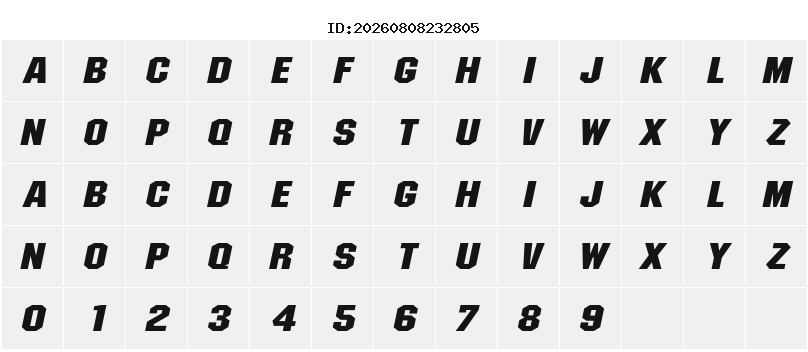
PittsburghExtended Preview
• Font Name: PittsburghExtended
• Font Style: Oblique
• Font ID: SWFTE:PittsburghExtended Oblique
• Full Font Name: PittsburghExtended Oblique
• Version: Rev. 003.000
• PostScript Name: PittsburghExtendedObliqueSWFTE
• Character Count: 233
About PittsburghExtended.ttf
PittsburghExtended.ttf is a modern, elegant sans-serif font designed for ultimate readability and visual harmony. Perfect for branding, headlines, web design, and print materials.